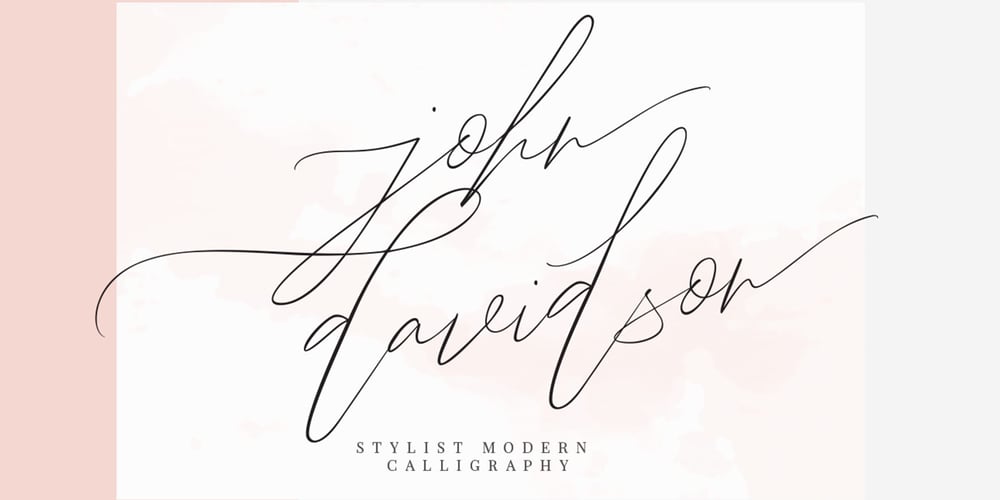
John Davidson Font Family was designed by Putra Khan and published by Mindtype Co.. John Davidson contains 1 styles and family package options. Introducing the John Davidson, a beautiful modern calligraphy font with handwritten, sophisticated flows. John Davidson offers beautiful typographic harmony for a diversity of design projects, including logos & branding, wedding designs, social media posts, advertisements & product designs.